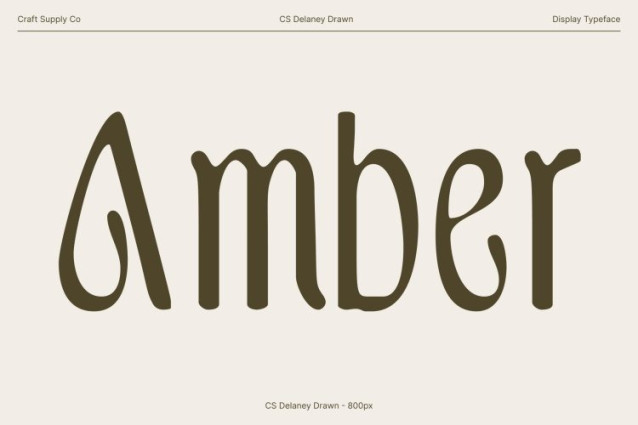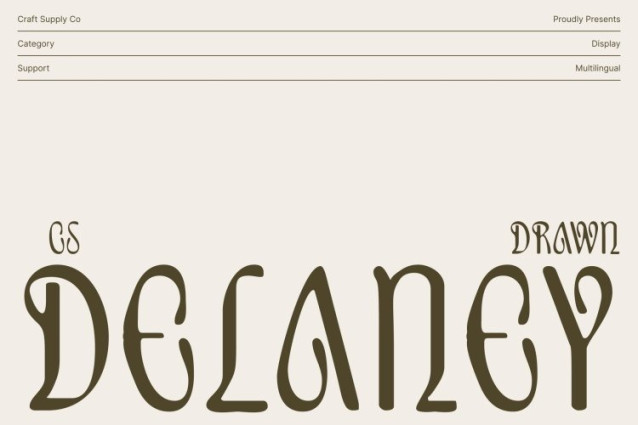
CS Delaney Drawn Font
CS Delaney Drawn Font – This brings a timeless elegance through its distinctive uncial style, merging historical letterforms with modern display strength. Its rounded, traditional curves create a refined silhouette that feels both ancient and sophisticated, making it perfect for designers seeking a font with classic depth and visual presence.
Elegant Curves with a Touch of Beauty
Every character in this font embodies graceful flow and balanced proportion. The elegant curves evoke a sense of beauty and refinement, ideal for projects that require a dignified yet stylish personality. This harmony of tradition and modernity adds richness to branding, titles, and editorial displays.
Hand Drawn Texture for Artistic Character
Enhanced with a subtle drawn effect, the font carries a handmade, artistic texture that sets it apart. This expressive detailing adds warmth, uniqueness, and a crafted feel, giving your designs a more personal and textured visual identity. It transforms classic serif structure into something more lively and original.
Perfect for Luxury Branding and Creative Titles
Whether used for luxury branding, book titles, posters, or artistic visual concepts, this font delivers a fusion of classic charm and creative flair. Its combination of uncial inspiration, elegant curves, and handcrafted texture makes it an exceptional choice for projects that aim to stand out with sophistication and individuality.